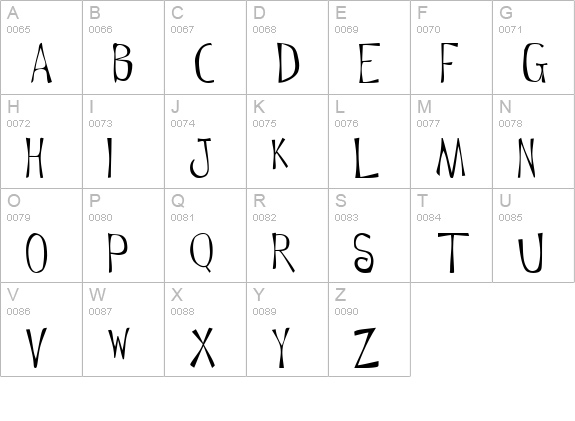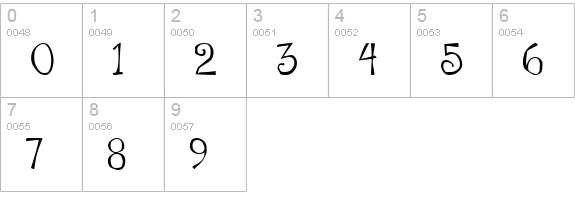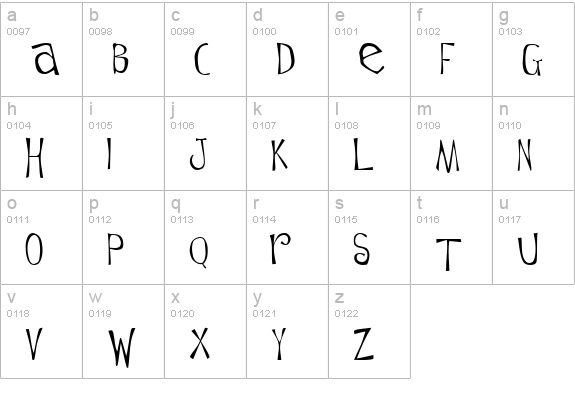
Flowerchild Plain Font Details
Flowerchild Plain font exudes a charming and whimsical feel, perfect for adding a touch of playfulness to your designs. This delightful font features smooth, flowing lines that give off a sense of elegance and grace. Flowerchild Plain is versatile and can be used for a wide range of projects, from branding to invitations to social media graphics. The best part? Flowerchild Plain font is completely free to download at FontsMarket.com. Now you can easily access this beautiful font and incorporate it into your creative projects without any cost. Don't miss out on the opportunity to enhance your designs with the unique and captivating style of Flowerchild Plain font. Download it today and let your creativity blossom!